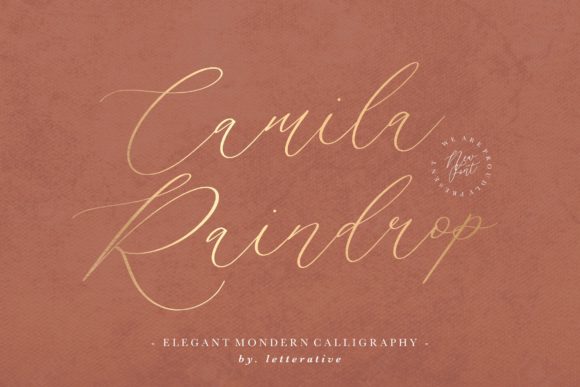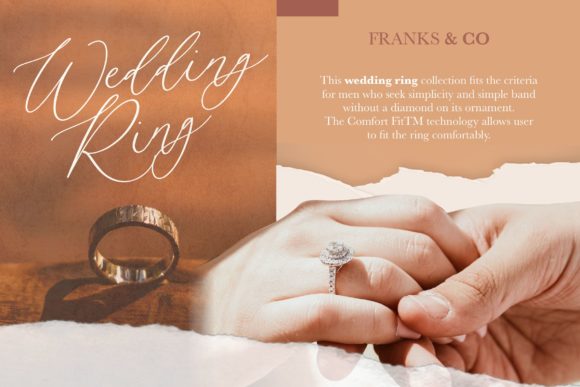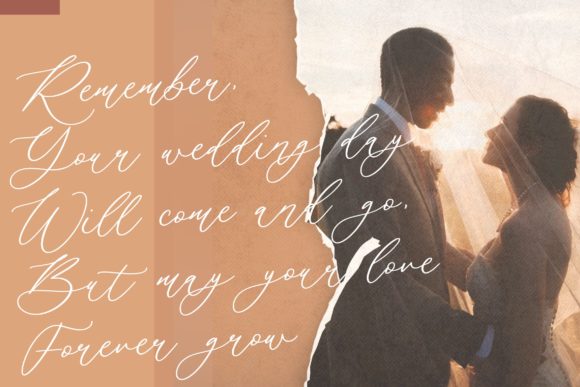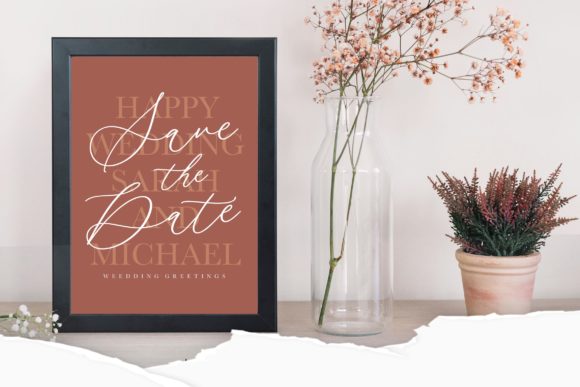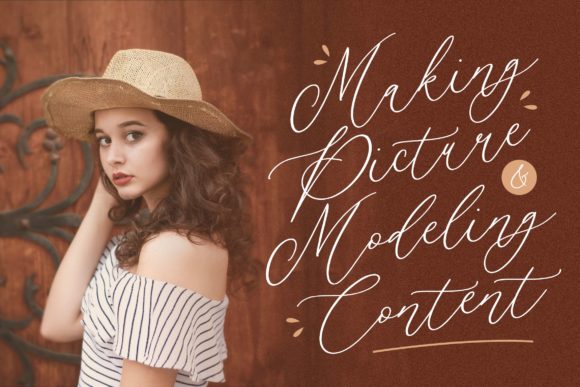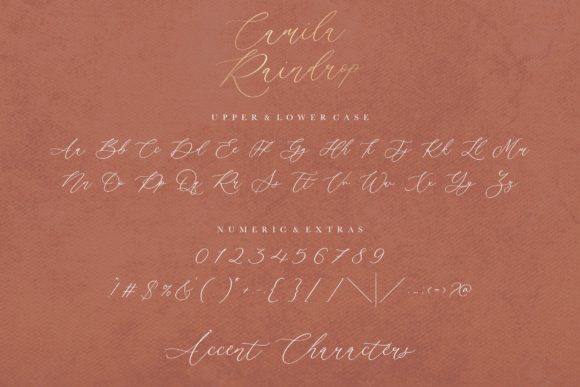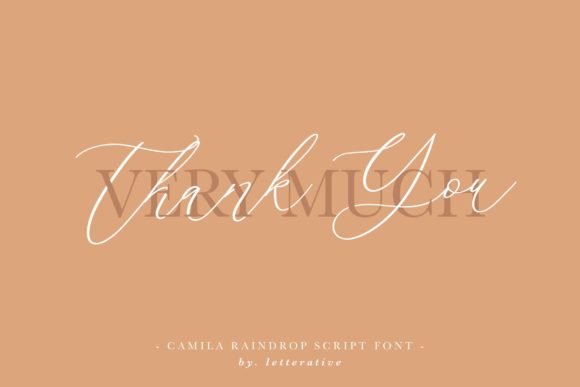
Camila Raindrop Font
About Camila Raindrop Font
Camila Raindrop is a unique and elegant handwritten font. Add this font to your creative ideas and notice how it will make them stand out!